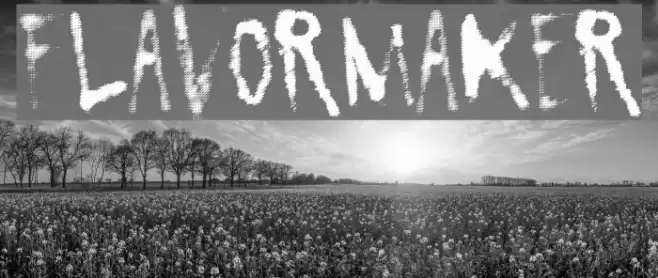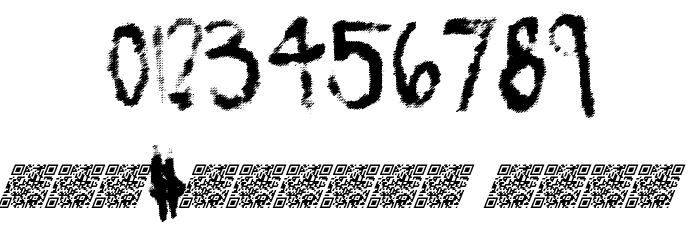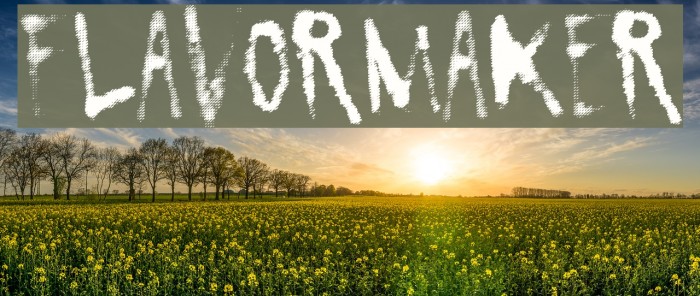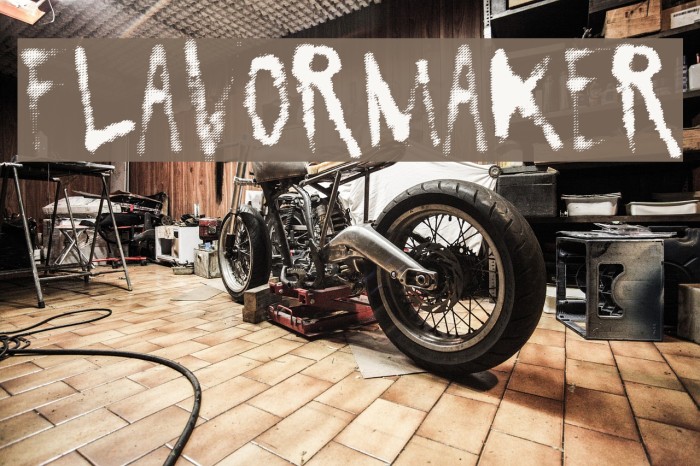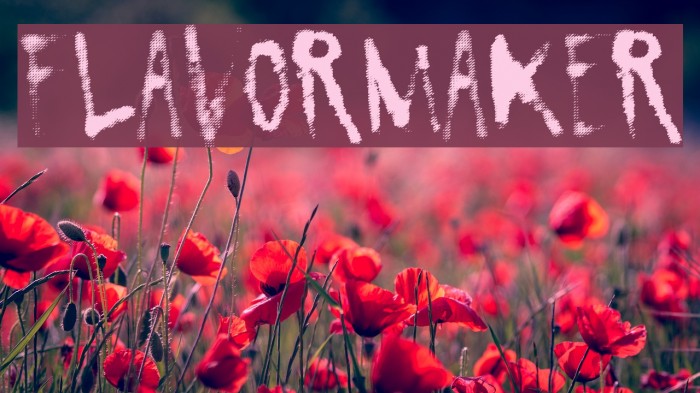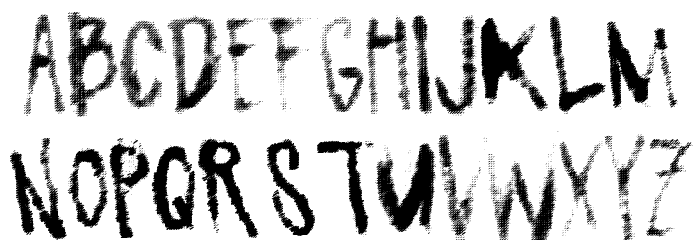
FlavorMaker Font
FlavorMaker Description
This font features a bold and expressive style with a hand-drawn appearance. The characters exhibit a rough, textured look, reminiscent of brush strokes or graffiti. The uppercase and lowercase letters maintain a consistent style, with exaggerated curves and irregular edges that give a dynamic and energetic feel. The numbers and special characters follow the same aesthetic, ensuring a cohesive look across all elements. The font's unique and artistic design makes it stand out, perfect for projects that require a creative and unconventional touch.
A bold, textured, hand-drawn style font with an expressive and dynamic appearance from Uncategorized fonts.
- Proposed Projects: Ideal for posters, album covers, street art designs, and any project needing a bold, artistic flair.
- Overall Style: Modern, Artistic